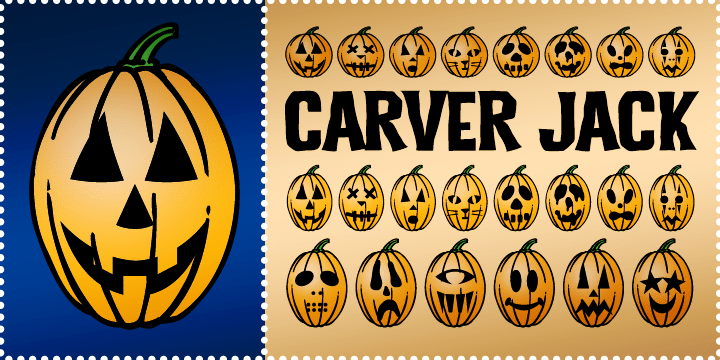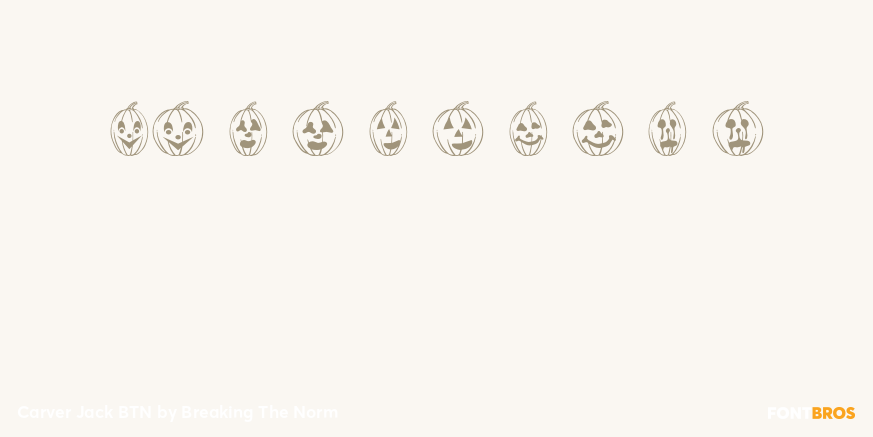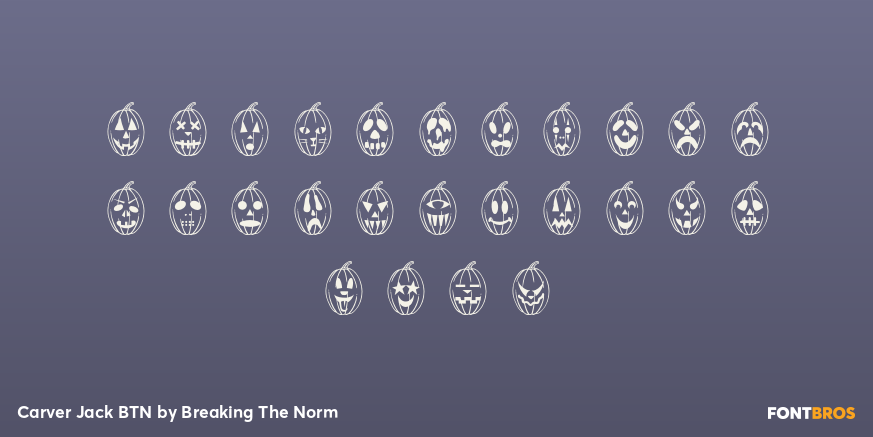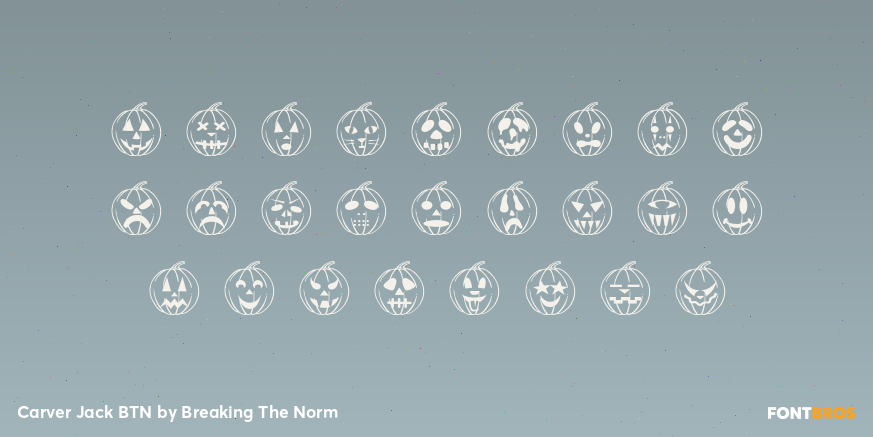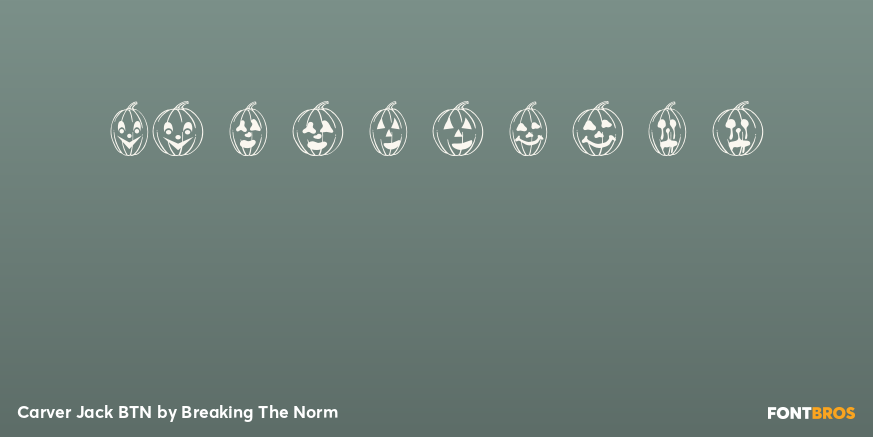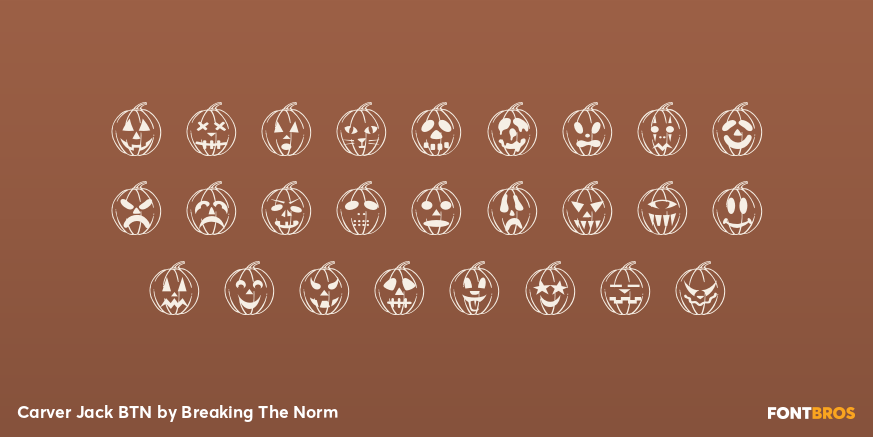
Carver Jack BTN
Font Family by Breaking The Norm
Carver Jack BTN is a Halloween-themed dingbat font filled with carved Jack O' Lantern designs in both wide and narrow styles. Created for spooky seasonal fun, it offers an easy way to add pumpkin faces and festive graphic accents to invitations, party materials, flyers, decorations, and fall-themed crafts. Carver Jack BTN is also useful for generating pumpkin carving inspiration, giving designers and Halloween enthusiasts a playful set of ready-made carved expressions to work with. Whether used decoratively or as a practical idea source, it brings a fun haunted touch to seasonal design projects.